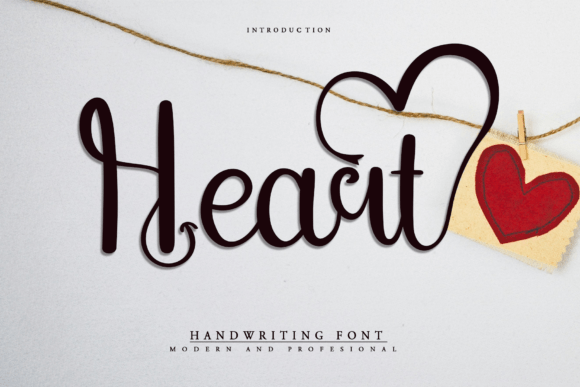
Adding a Touch of Whimsy: The Magic of Heart Font
There’s something special about seeing a handwritten font bring a design to life. Maybe it’s the imperfections, the character, or the personal touch that makes it feel like a handwritten note from a friend. Whatever it is, it’s a feeling that’s hard to replicate with digital fonts.
That’s where the Heart Font comes in – a simple yet versatile handwritten font designed to add a natural feel to your next project. Whether it’s a greeting card, a headline, or a social media post, Heart Font is the perfect addition to bring a touch of warmth and personality to your design. As a designer, you know how valuable a versatile font can be, and Heart Font is no exception.
Key Features of Heart Font
- Font Family: Heart Font is a display font, making it ideal for headings and titles.
- Unique Characteristics: The font features a unique, hand-drawn design with intricate details and subtle nuances, making it perfect for creating a personal touch.
Heart Font Review
When I first laid eyes on the Heart Font, I was immediately drawn to its playful and whimsical vibe. ✨ The font’s unique blend of elegance and quirkiness makes it perfect for any project that needs a touch of romance or fun. I love how the font’s rounded edges and flowing curves create a sense of movement and energy.
One of the standout features of the Heart Font is its versatility. ✨ It can be used for everything from wedding invitations to children’s book illustrations, and it always looks great. The font’s wide range of sizes and styles makes it easy to customize and adapt to different design needs.
- ⚠️ The font can be a bit difficult to read at very small sizes, especially for body text. It’s best used for headings and titles where it can shine.
- ⚠️ Some users may find the font’s whimsical nature to be a bit too much, especially in more formal or professional settings.
Overall, I’m a big fan of the Heart Font. It’s a great addition to any designer’s toolkit, and it’s sure to bring a smile to your users’ faces. With a little care and consideration, it can be used to create truly memorable and effective designs.
The Heart Font is commonly used in designs related to love, relationships, and Valentine’s Day. It’s also used in creative and playful projects, such as children’s books, greeting cards, and social media graphics.